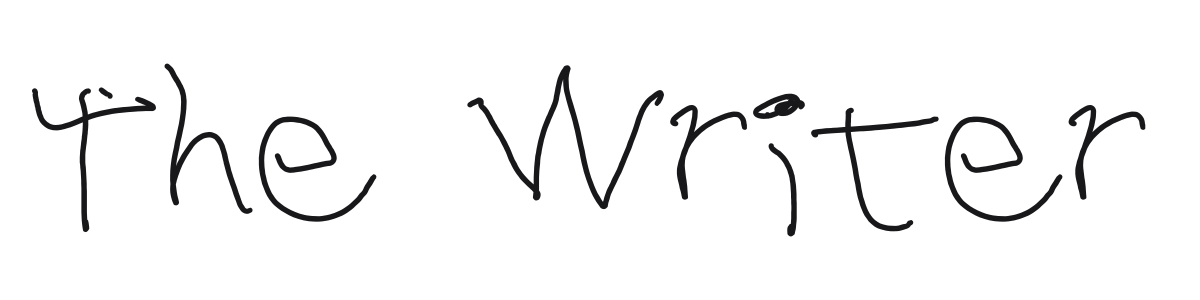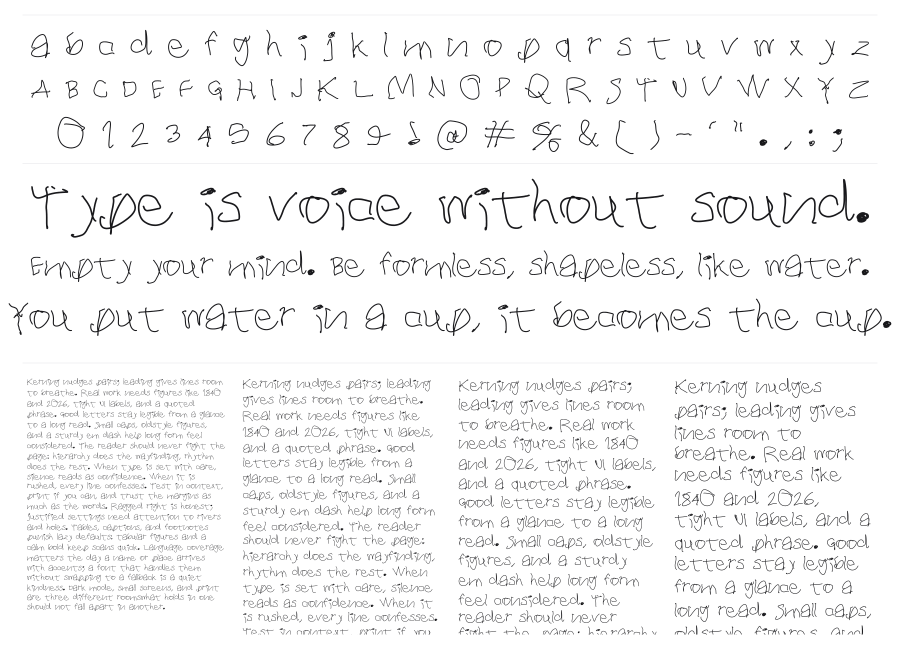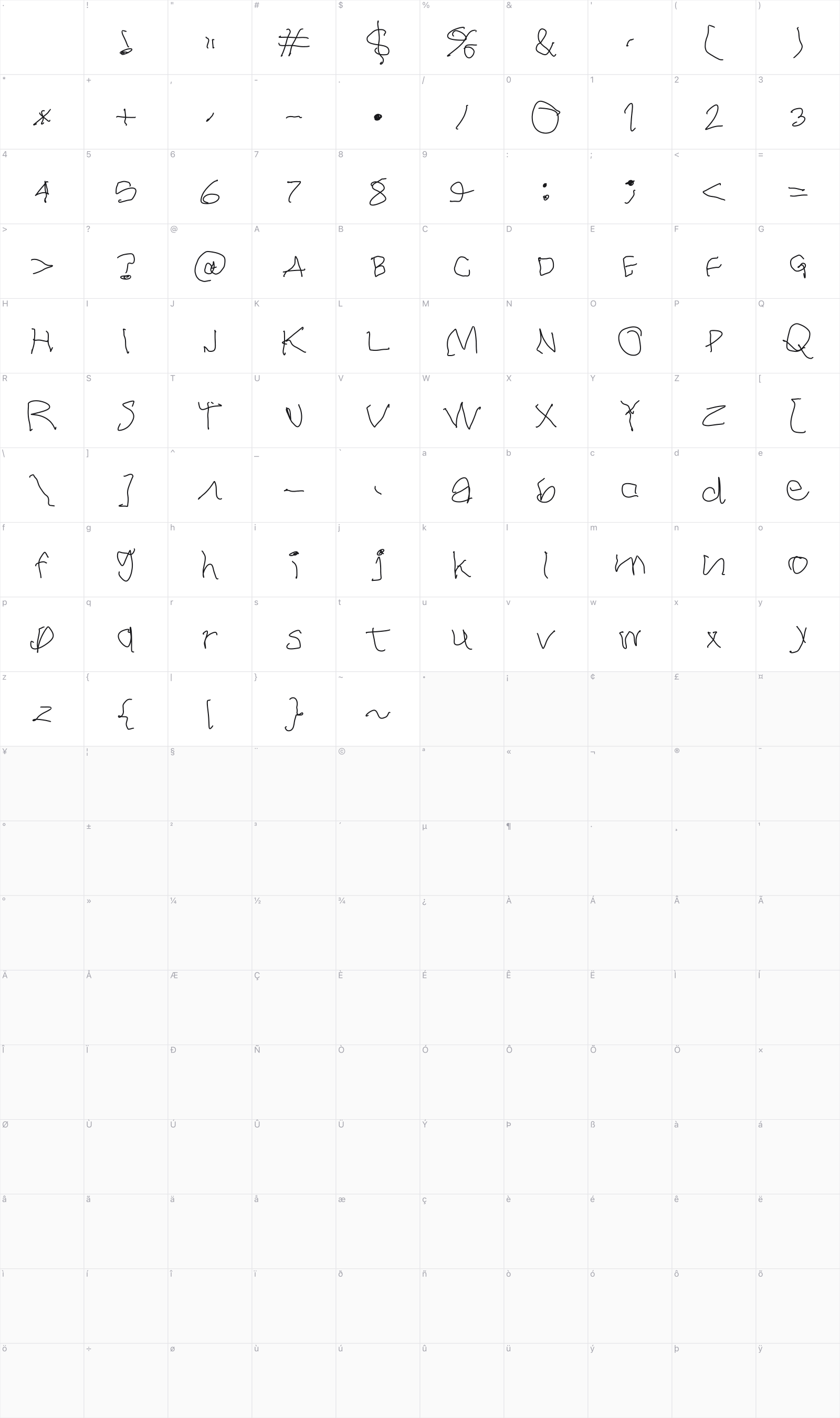
The Writer
by Anthony Valdes
The Writer is a thin cursive handwriting font that looks like it was scrawled with a fine-tip pen in a quiet moment. The letters loop and wobble with genuine irregularity, closer to a personal diary entry than structured calligraphy. It carries an intimate, off-the-cuff quality that formal scripts rarely manage.